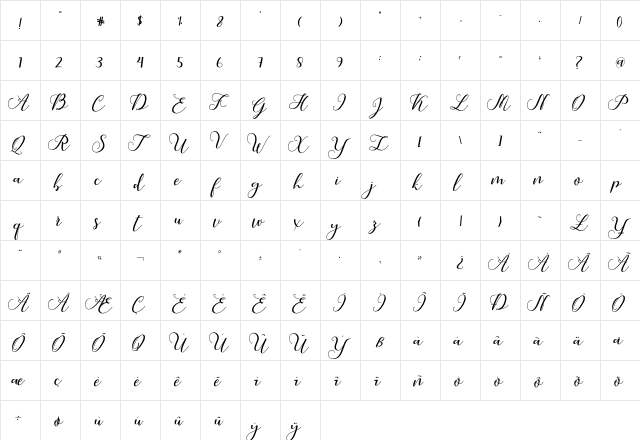
Callme Script Regular
Design Context for Callme Script Typeface
Callme Script flows with the natural rhythm of handwritten lettering, making it ideal for designs that call for warmth and personal expression.
Font Pairing: Combine Callme Script with a simple geometric sans for maximum contrast — the tension between flowing curves and clean structure is a classic typographic pairing.
Pro Tip: Use Callme Script for short runs of text — names, titles, or taglines. Extended body copy in script faces tires the eye quickly.